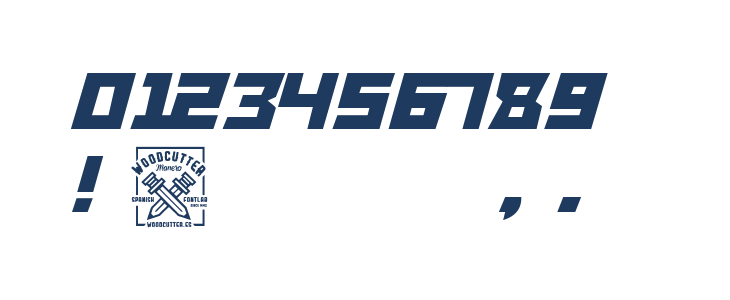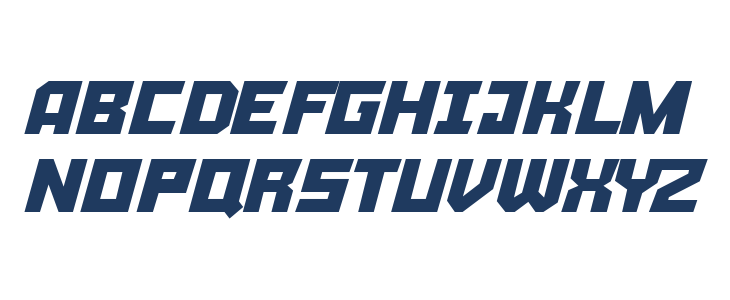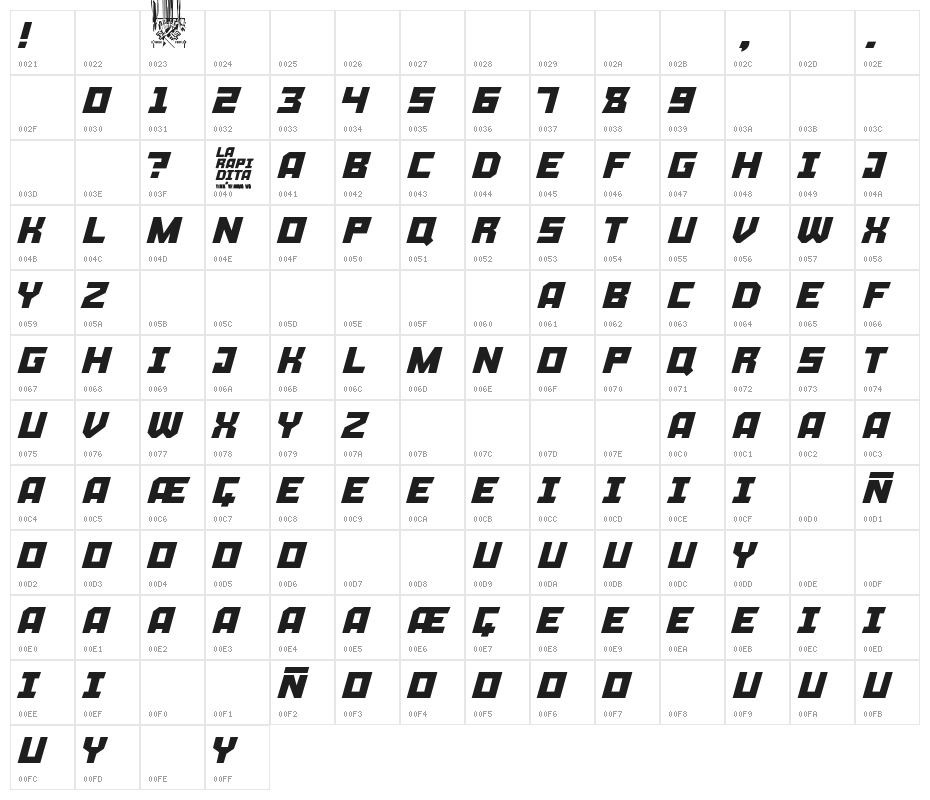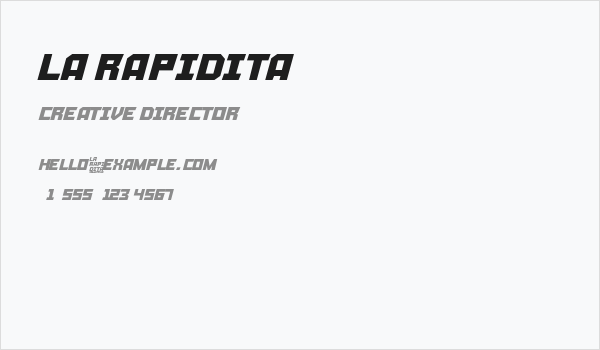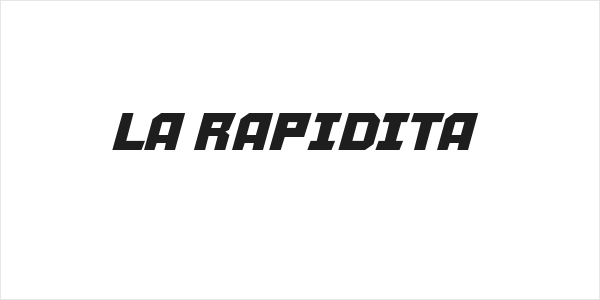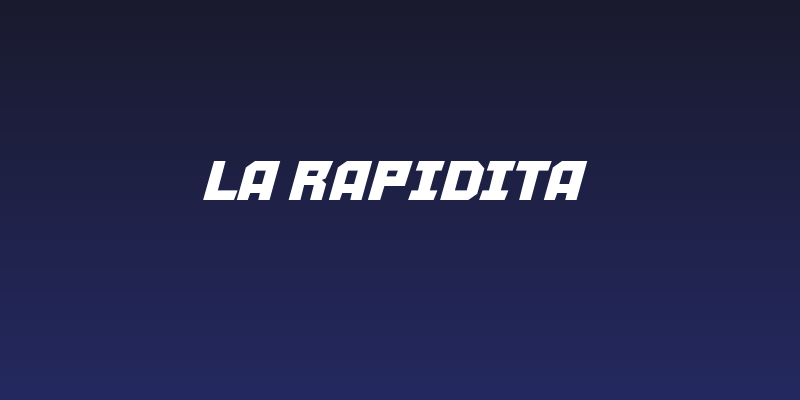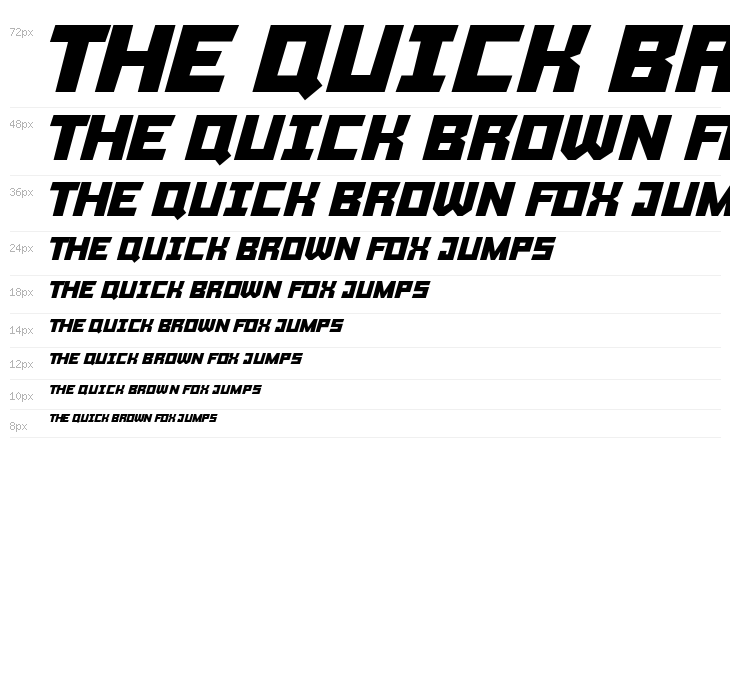
La Rapidita Font
La Rapidita Description
A bold, geometric sans-serif typeface with strong angular cuts and a pronounced forward slant, evoking a sense of speed and dynamism. The characters are wide, with consistent stroke thickness and minimal contrast, and the overall appearance is modern and aggressive.
| Overall Style | Modern, Decorative, Sporty |
| Proposed Projects | Sports branding, racing posters, action-themed logos, video game titles, event flyers. |